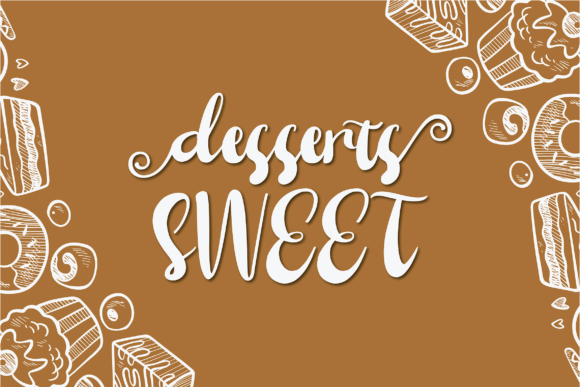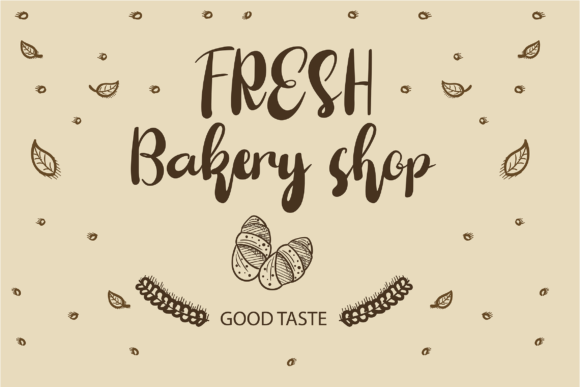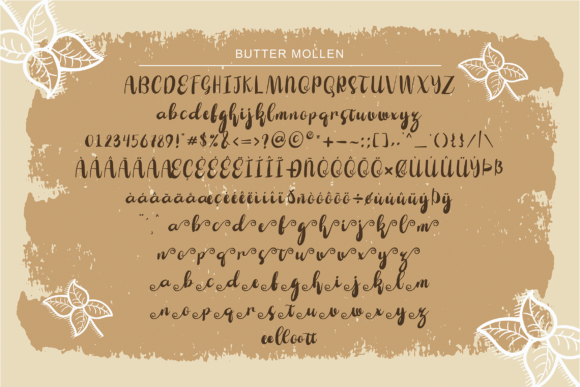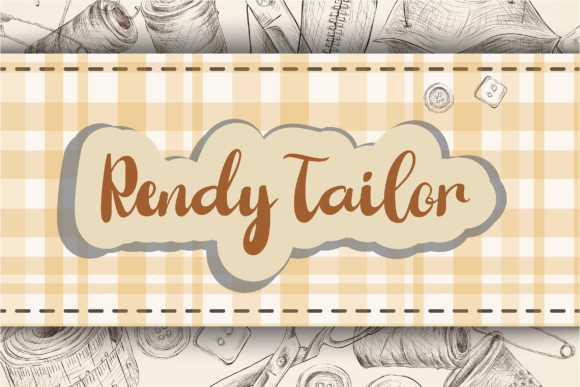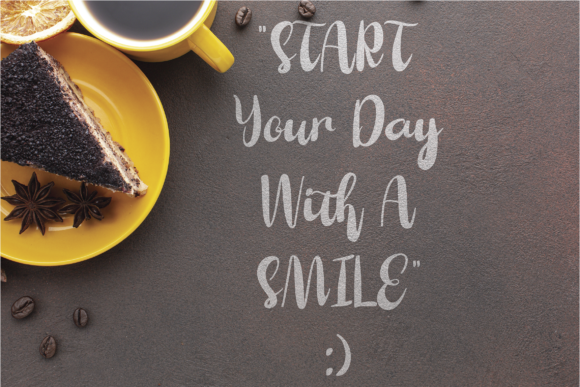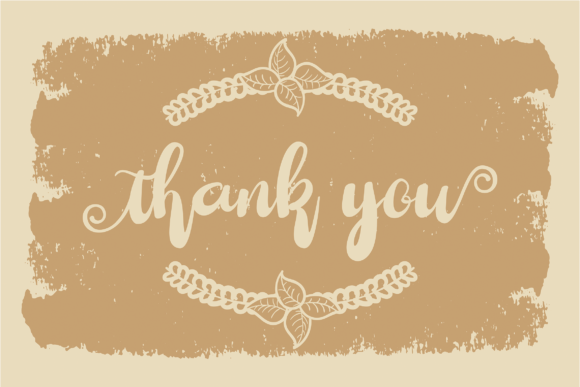
Introducing Butter Mollen Font: The Ultimate Friendly Handwritten Font
Are you tired of using the same old fonts for your creative projects? Look no further! Butter Mollen Font is here to revolutionize your design game with its cute and casual handwritten style. This font is perfect for designers, crafters, and DIY enthusiasts who want to add a personal touch to their work. In this article, we’ll dive into the world of Butter Mollen Font and explore its features, benefits, and uses.
The Friendly Feel of Butter Mollen Font
Butter Mollen Font boasts an incredibly friendly feel that’s sure to capture the hearts of your audience. Its handwritten style is reminiscent of a warm, personal note from a friend. This font is designed to make your creative projects stand out from the crowd and leave a lasting impression. Whether you’re creating social media graphics, invitations, or DIY crafts, Butter Mollen Font is the perfect choice.
Perfect for Instagram and Social Media
In today’s digital age, having a strong online presence is crucial. Butter Mollen Font is an excellent choice for Instagram and other social media platforms. Its cute and casual style is sure to grab the attention of your followers and make your posts stand out. Use it to create engaging captions, quotes, or stories that showcase your personality and brand.
Calligraphy Scripts for DIY Projects
If you’re a crafty person who loves DIY projects, Butter Mollen Font is a dream come true. This font is perfect for creating beautiful calligraphy scripts for handmade cards, invitations, and gifts. Its friendly feel and handwritten style will add a personal touch to your creations and make them truly special.
Features and Benefits of Butter Mollen Font
- Cute and casual handwritten style: Butter Mollen Font has a unique and charming handwritten style that’s perfect for creative projects.
- Incredibly friendly feel: This font is designed to evoke a warm and personal feel that’s sure to connect with your audience.
- Perfect for Instagram and social media: Use Butter Mollen Font to create engaging social media graphics and posts that stand out.
- Great for DIY projects: This font is ideal for handmade cards, invitations, and gifts.
- Easily readable: Butter Mollen Font is clear and easy to read, making it perfect for body text and captions.
- Create social media graphics and posts
- Design handmade cards and invitations
- Make DIY crafts and gifts
- Use it for body text and captions
Butter Mollen Font is a versatile and charming handwritten font that’s perfect for designers, crafters, and DIY enthusiasts. Its cute and casual style, incredibly friendly feel, and ease of use make it an excellent choice for a wide range of creative projects. Whether you’re looking for fonts for Instagram or calligraphy scripts for DIY projects, Butter Mollen Font is sure to turn your creative ideas into true pieces of art!